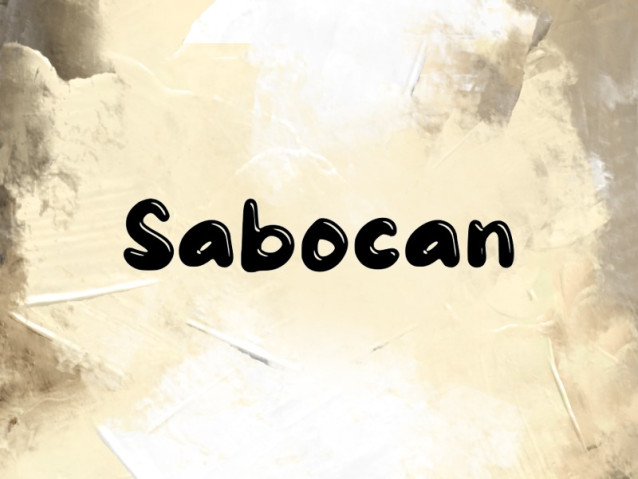
Sabocan Font
Sabocan Font is a simple and modern display font suitable for quotes, logos, headings, titles, and many more. Use it on any of your creative projects, and your designs will become outstanding!